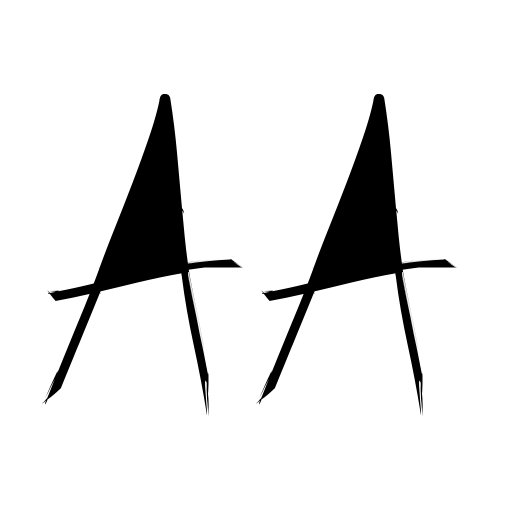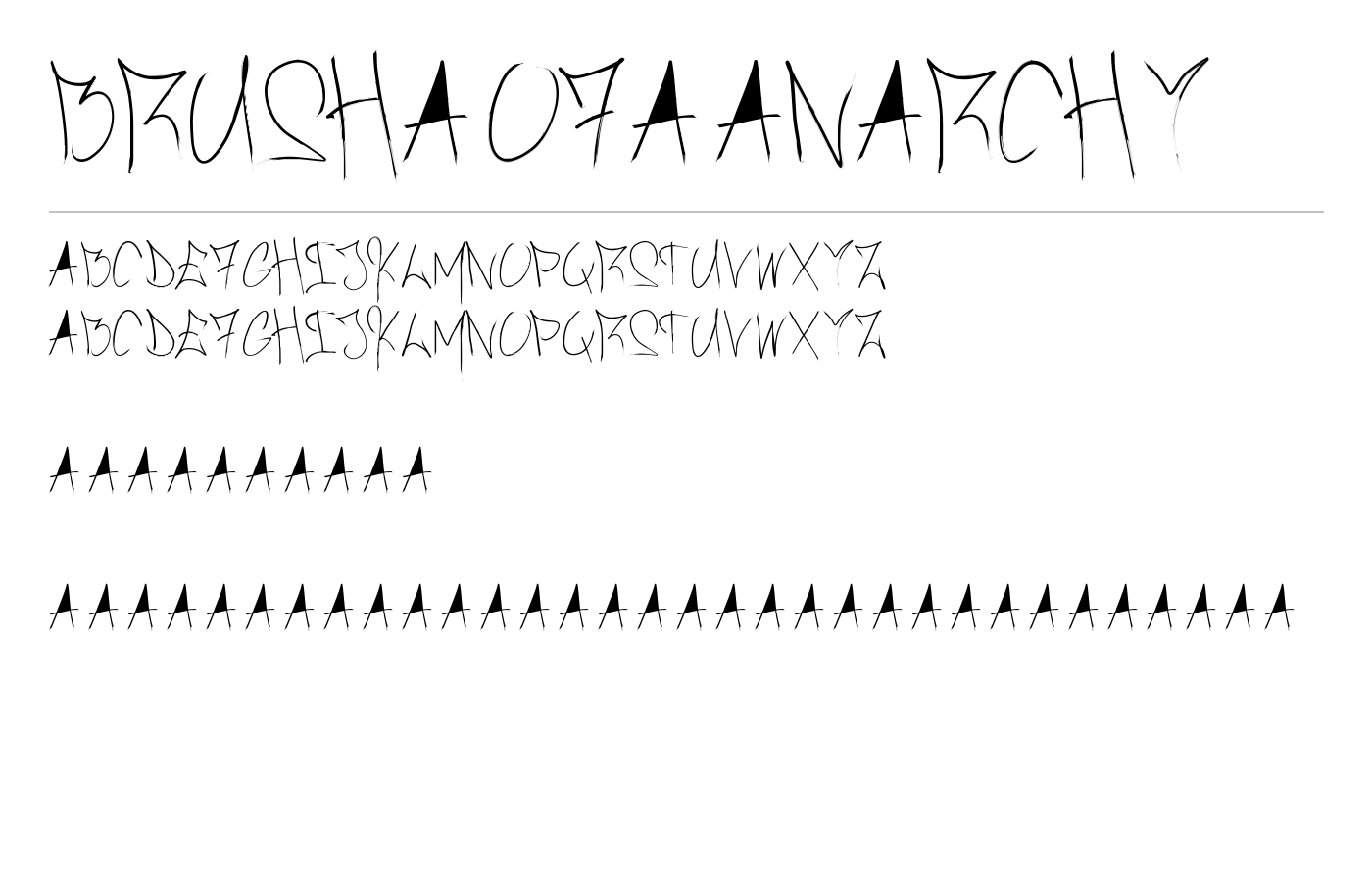
Brush Of Anarchy is a unique, artistic script font with a hand-drawn, brushstroke aesthetic that features tall, narrow letterforms and sharp, irregular strokes with dramatic contrasts. Its edgy and rebellious style makes it perfect for creative projects that want to convey energy and distinctiveness, such as alternative branding, posters, or bold headline designs. This font works best where individuality and a striking visual impact are desired rather than for large bodies of text.
Brush_Of_Anarchy Font
About Brush_Of_Anarchy Font